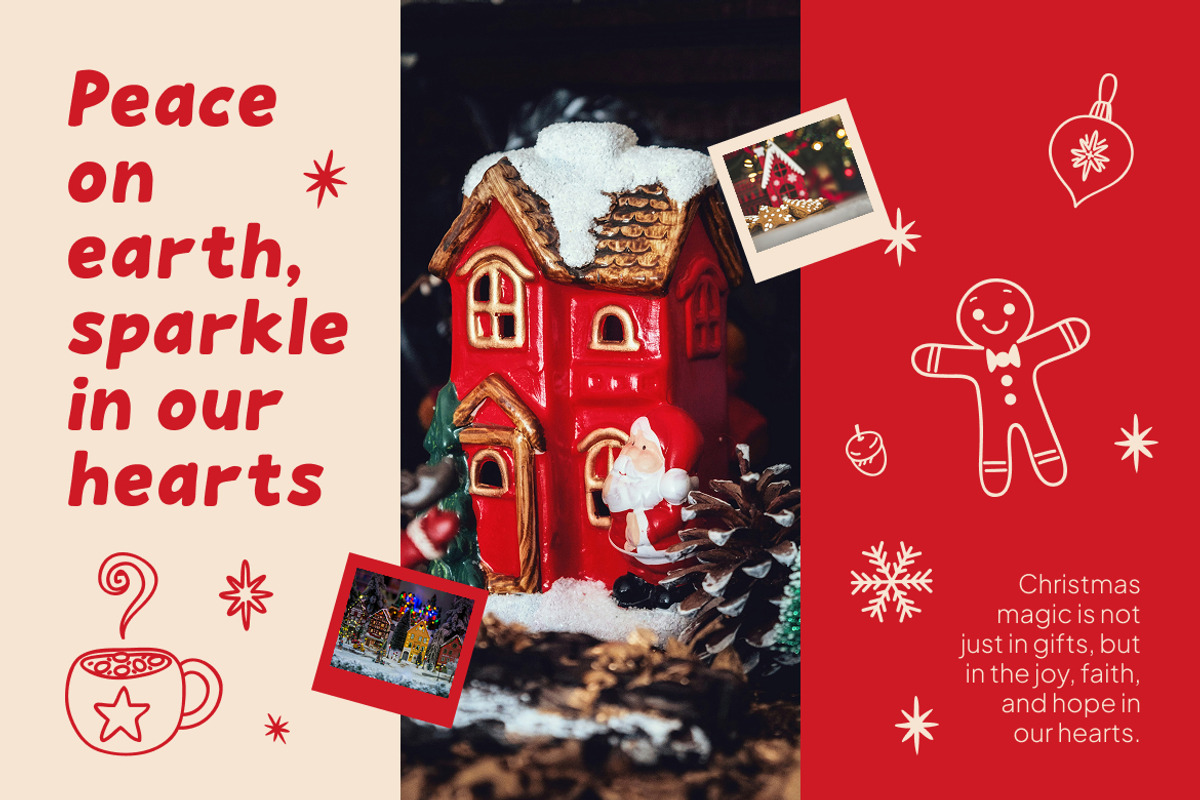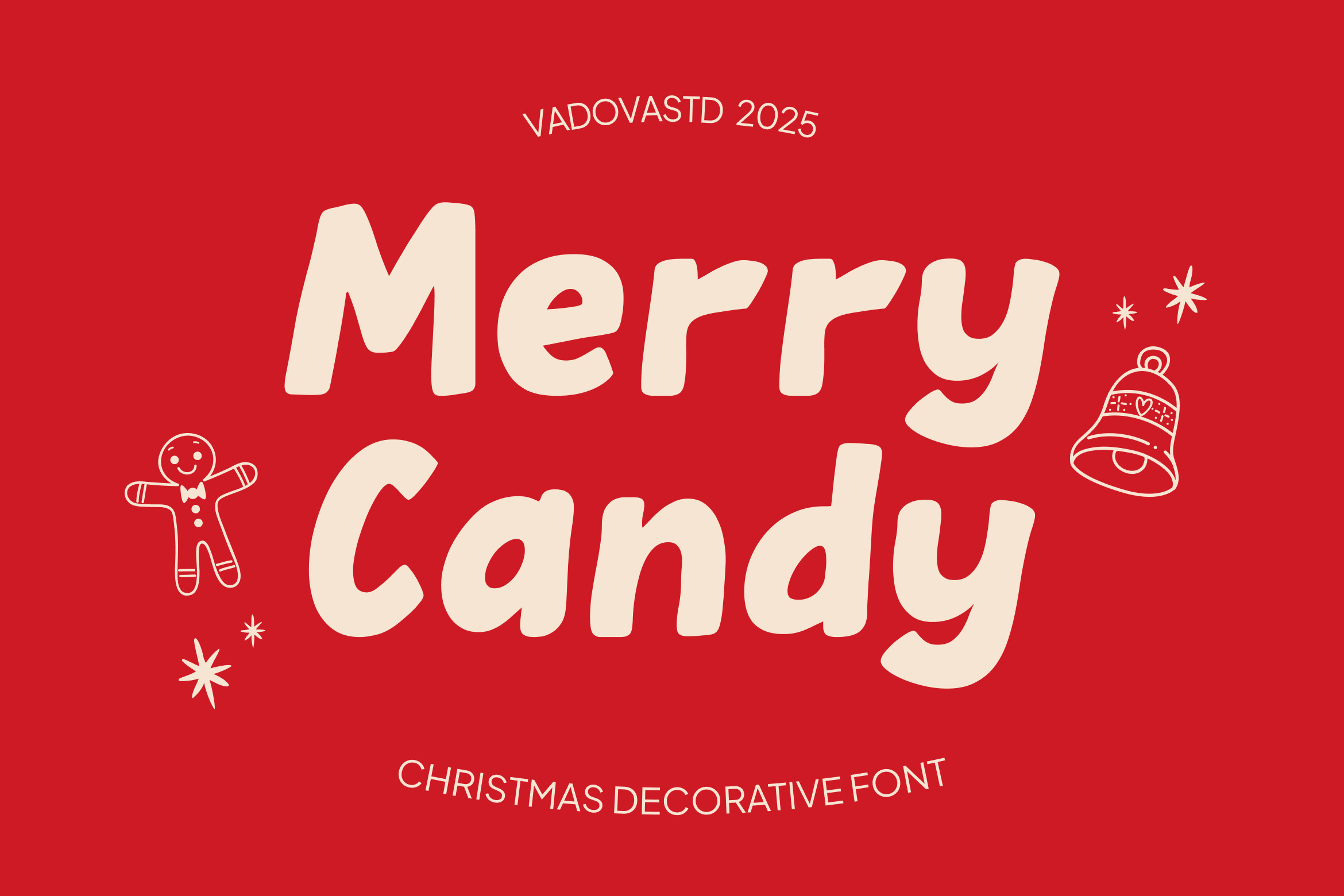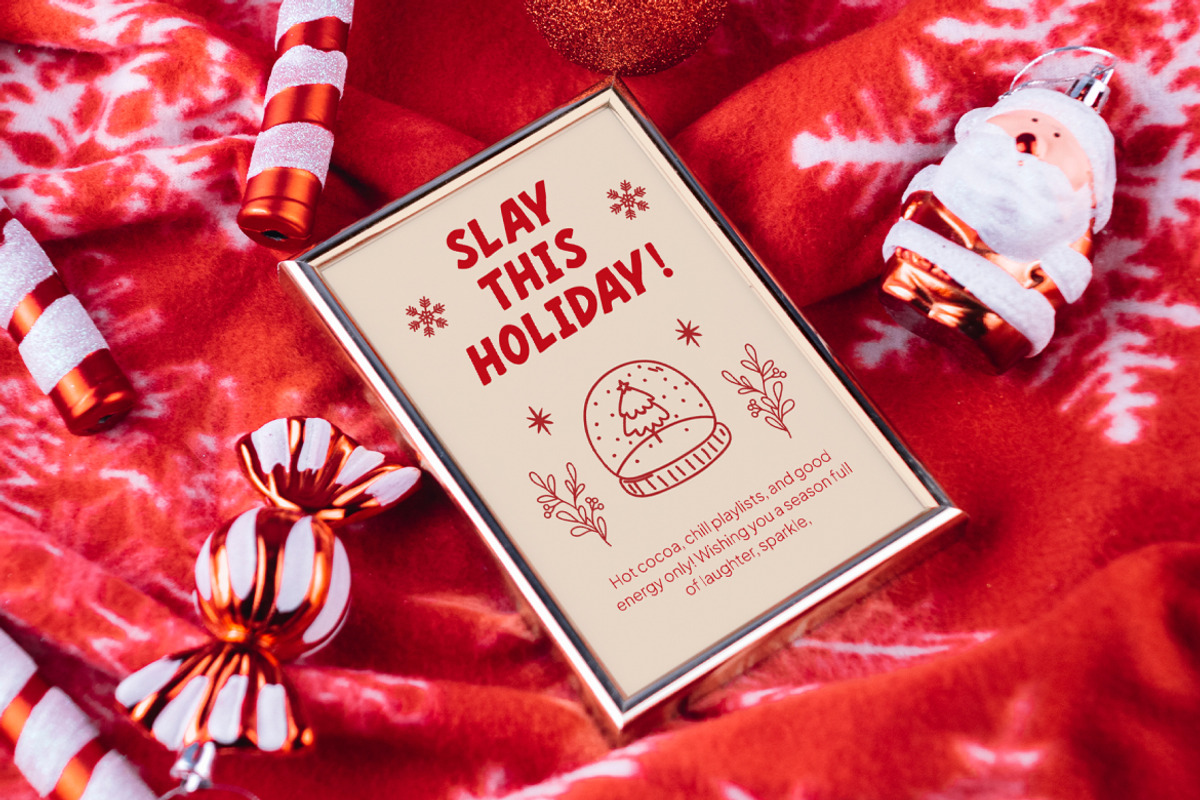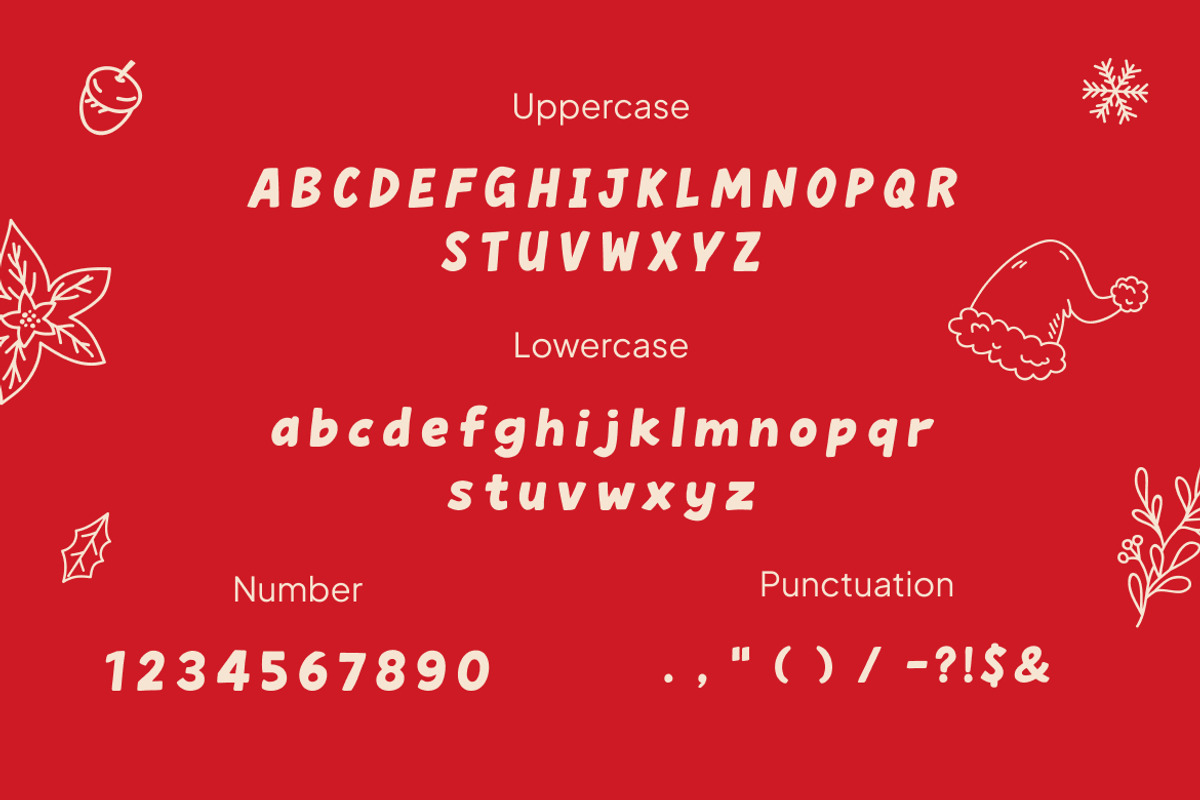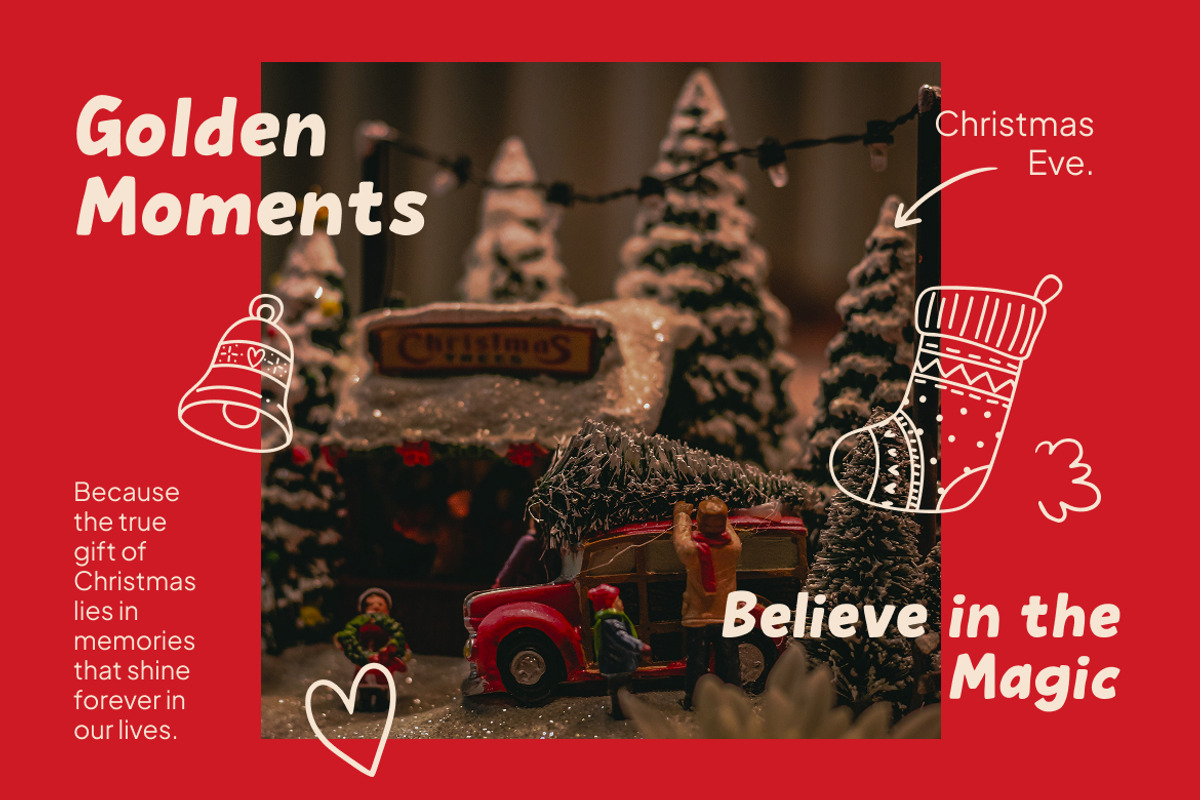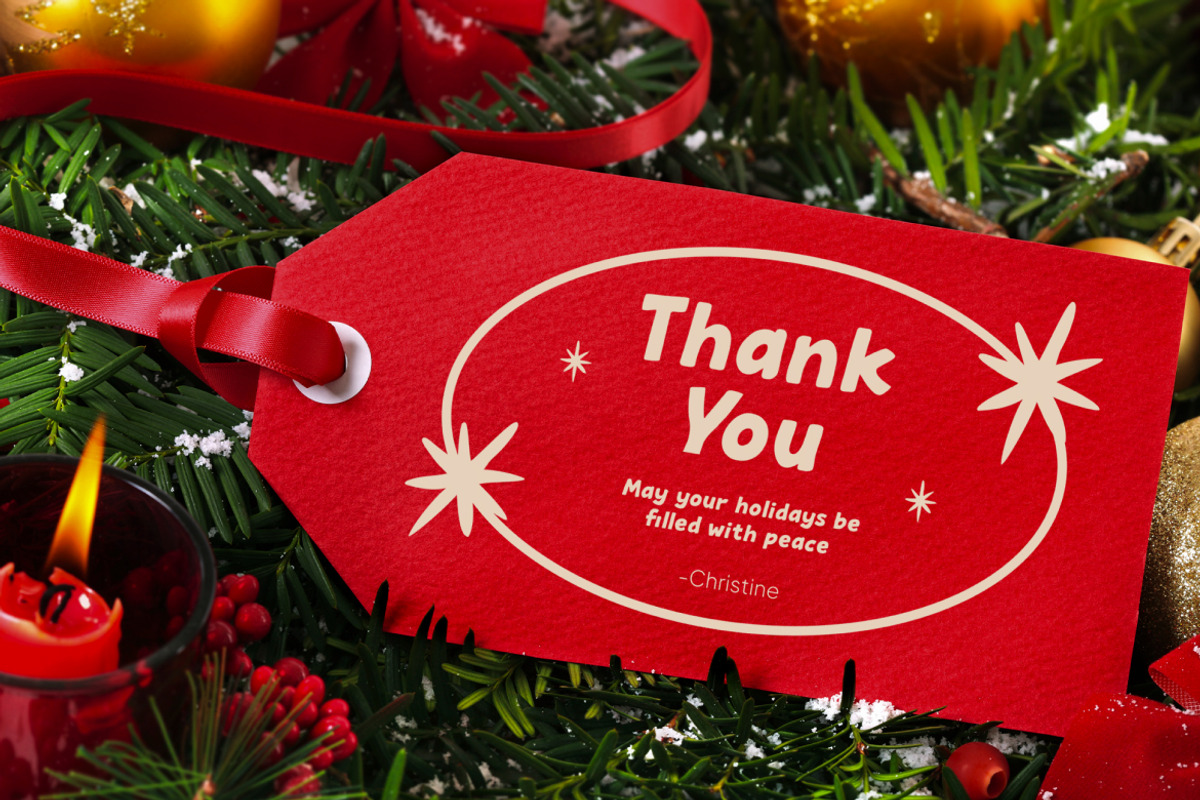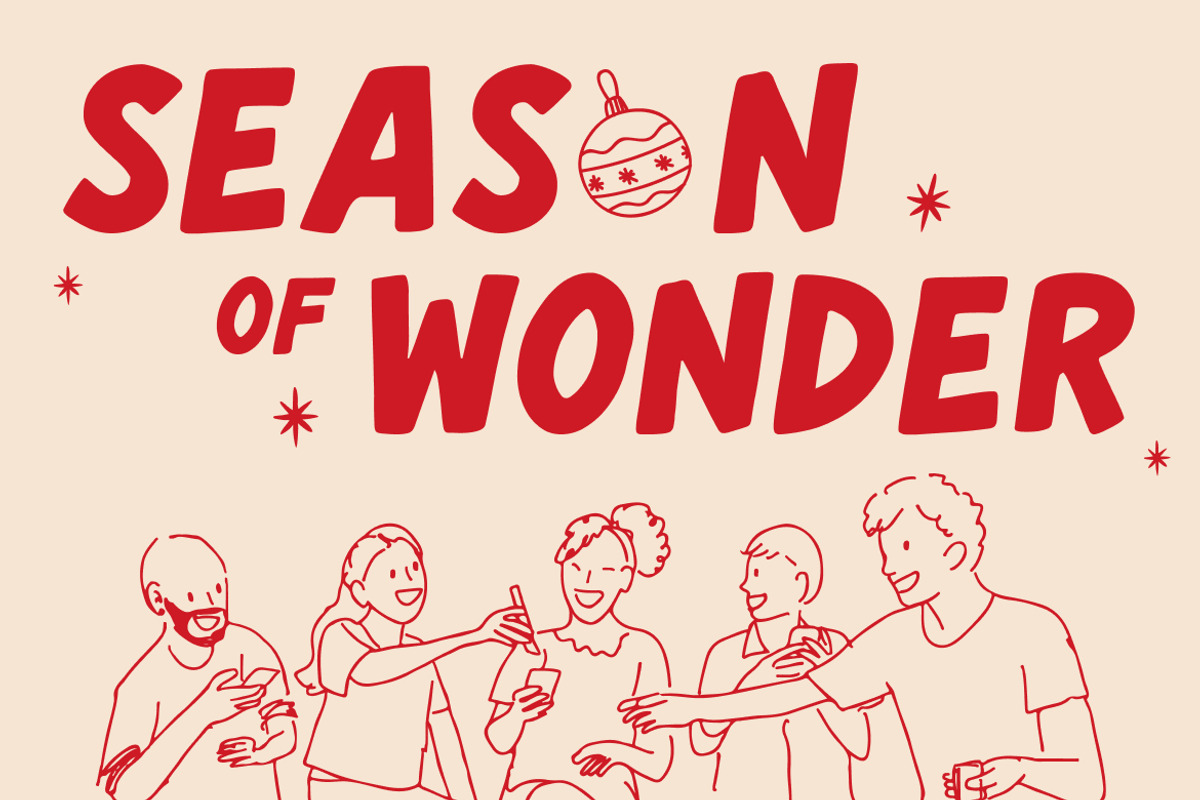
Merry Candy Christmas Font
Merry Candy is a playful, hand-lettered font that captures the warmth and joy of the holiday season. Inspired by cozy Christmas traditions, sweet treats, and childhood cheer, this rounded and bouncy typeface brings a soft, cheerful personality to every design. It’s perfect for holiday cards, gift packaging, kids’ books, festive merchandise, and any design that needs a touch of Christmas magic.
The font features plump curves and smooth terminals, mimicking the softness of candy or handwritten notes. It pairs beautifully with holiday illustrations and comes with a full uppercase and lowercase character set, numerals, and punctuation all designed for readability and charm.
Merry Candy is ideal for crafting inviting visuals that feel personal and heartwarming. Whether you’re promoting a Christmas event, designing a bakery label, or creating a social media post for the holidays, this font delivers a whimsical, feel-good vibe that draws people in.
- Rounded and bouncy letterforms with soft, handwritten feel
- Playful, family-friendly character — perfect for holiday themes
- Full uppercase, lowercase, numbers, and punctuation
- Clean, legible structure for headings and short text
- Ideal for cards, packaging, ads, signage, and more
- Great for children’s products, holiday branding, and festive printables
- Balanced for both print and screen
Relevance and Use Cases is for Christmas cards, packaging design, kids’ books, bakery labels, holiday invitations, social media graphics, festive flyers, cozy apparel design, wrapping paper, DIY templates, seasonal branding, advent calendars, product labels, school crafts, party signage, family newsletters, gift tags, sticker designs, cute merchandise, winter events
Spread holiday cheer with Merry Candy the sweetest way to style your Christmas messages.